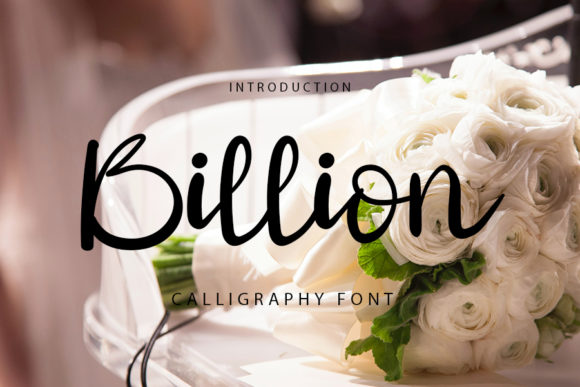
The Billion Font: A Modern Handwritten Marvel
I’ll never forget the moment I stumbled upon the perfect font for a project. I was working late, surrounded by design mockups and client briefs, when I realized I needed something fresh and unique. That’s when I discovered the Billion Font – a modern, casual handwritten font that instantly captured my heart. Its elegant touch and distinct style made it an instant favorite, and I knew I had to share it with fellow designers and creatives.
So, what makes the Billion Font so special? Let’s dive into the good stuff and a few quirks I’ve noticed.
- ✨ Elegant and modern handwritten style
- 💫 Unique character set with OpenType features
- 🎨 Versatile and perfect for various design projects
While the Billion Font is incredibly versatile, I’ve noticed a few minor limitations:
- ⚠️ Limited availability of Cyrillic or non-Latin scripts
- Choose the Billion Font and explore OpenType features, such as glyphs and swashes, to enhance your design
The Designer Inspiration Behind Billion Font
Although the actual designer behind the Billion Font remains a mystery, it’s clear that they drew inspiration from modern calligraphy and handwritten typography. The font’s elegant touch and distinct character set make it a standout in the world of handwritten fonts.
| What makes the Billion Font unique? | The Billion Font boasts an elegant, modern handwritten style with a distinct character set and OpenType features. |
| Is the Billion Font suitable for body text? | While the Billion Font is highly legible, it’s best suited for headings, titles, and short paragraphs. For longer body text, consider a more traditional font. |